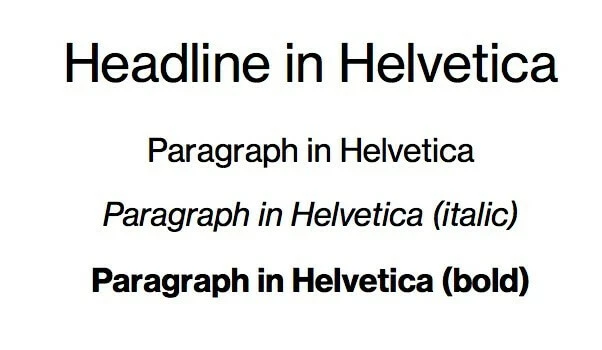
The best Web Fonts
For web designers finding exciting fonts for a website has never been easier. Thanks to modern web fonts, there are virtually no limits to your creativity. With the right combination of web-safe fonts that reflect the character of a site, website owners can make a lasting positive impression. We’ll tell you what web fonts are and what makes web-safe fonts so important.
What are web fonts?
Web fonts are digitized fonts that can be interpreted by browsers. Such fonts are primarily intended for use in HTML or XHTML documents – i.e., for use on the Web. Web fonts are characterized by the fact that they work independently of the operating system, since they are not loaded from the local font collection but from an external web server. To this end, the desired web fonts must simply be included in the CSS rule @font-face and specified in the font stack.
Why are web-safe fonts important?
Since the introduction of @font-face in CSS2, technically all fonts can be included in web projects. Previously, web designers only had a small selection of standard fonts such as Arial or Times New Roman at their disposal. The term “web-safe fonts” was coined, which initially identified the standard fonts that were indispensable for smooth web display.
Today, web designers can more easily meet corporate design specifications thanks to the vast collection of available web-safe fonts. Good fonts for websites are among the important foundations for implementing overarching marketing strategies, making them almost indispensable for a company’s successful web presence.
Web-safe fonts: an overview of the most important fonts
Web font categories and their usage
The term font generally refers to all characters that have been designed according to an identical design concept. If there are several variants of such a font that differ, for example, in terms of stroke width or tracking, then they are referred to as a font family. For example, the fonts Segoe UI, Segoe Light, and Segoe Semibold belong to a single font family.
Web friendly fonts are suitable for various applications. When choosing a font, you should pay attention to two things in particular: the legibility of the font and its emotional impact. The medium also plays a major role. In so-called serif fonts, individual letters have small cross strokes at the end of letter bars, which make it easier to read small print. However, this typeface is not always ideal for reading on a monitor.
Function and position in a text should also influence the choice of web fonts. While eye-catching fonts in headlines may attract attention, they often look out of place in body text. For this reason, web designers tend to use several different fonts or font styles (as the variants within a font family are called) as part of the page design. However, it’s best not to overdo switching fonts otherwise a website could quickly look cluttered.
The individual web fonts also differ greatly in terms of the effect they can have. The following table provides an overview of fonts and the texts they are particularly suitable for as well as the associations they may trigger in a reader.
The features of different web font categories listed above are generalized. In practice, the use of unexpected fonts can be a good way to stand out from the competition. To find the right web fonts, you should heed the following advice:
- Consider theme and audience: A visually compelling combination of good website fonts is useless if it doesn’t match the theme of the page. Objectivity is best conveyed by a mix of serif and sans-serif fonts. Handwritten fonts are more eye-catching and appear livelier.
Georgia
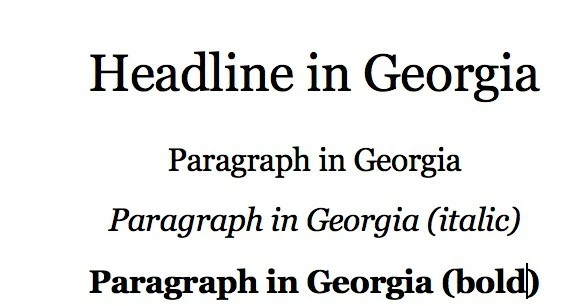
The Georgia proportional font was designed by Matthew Carter for Microsoft in 1996. From the start, the aim with this baroque antiqua was to achieve the clearest possible display and optimal readability on computer screens. With the increasing popularity of blogs, the web-safe font found its way online ten years later.